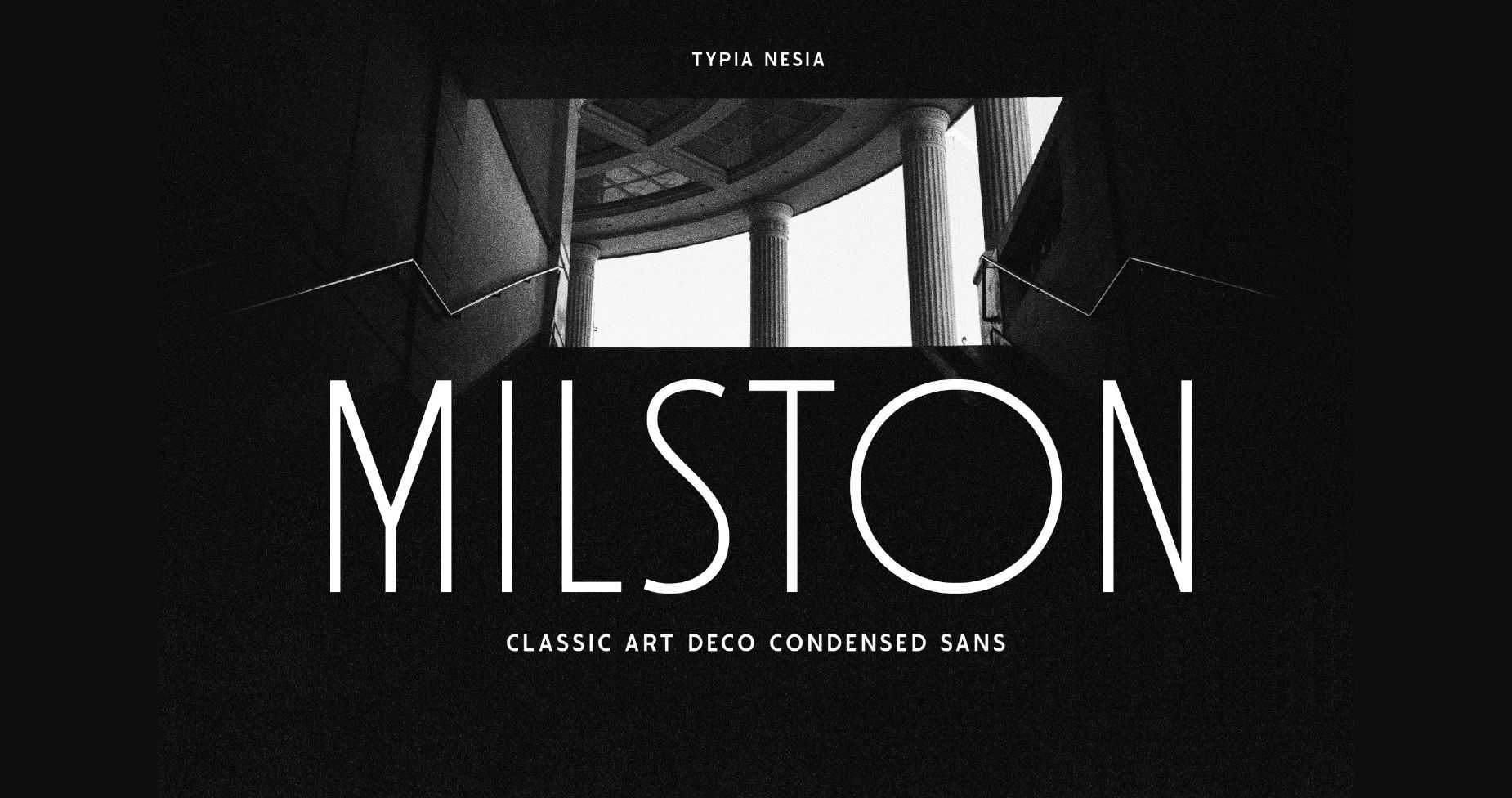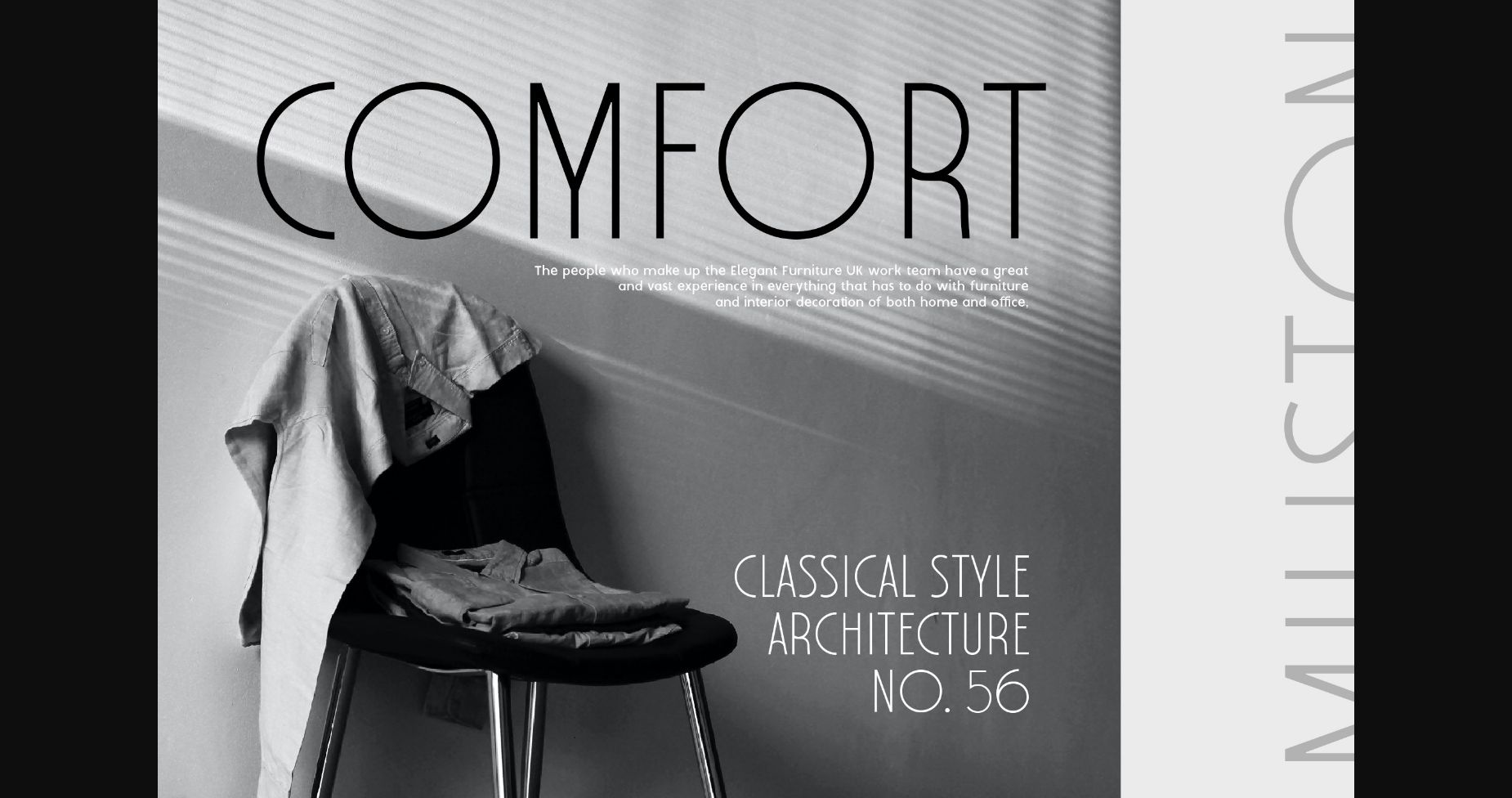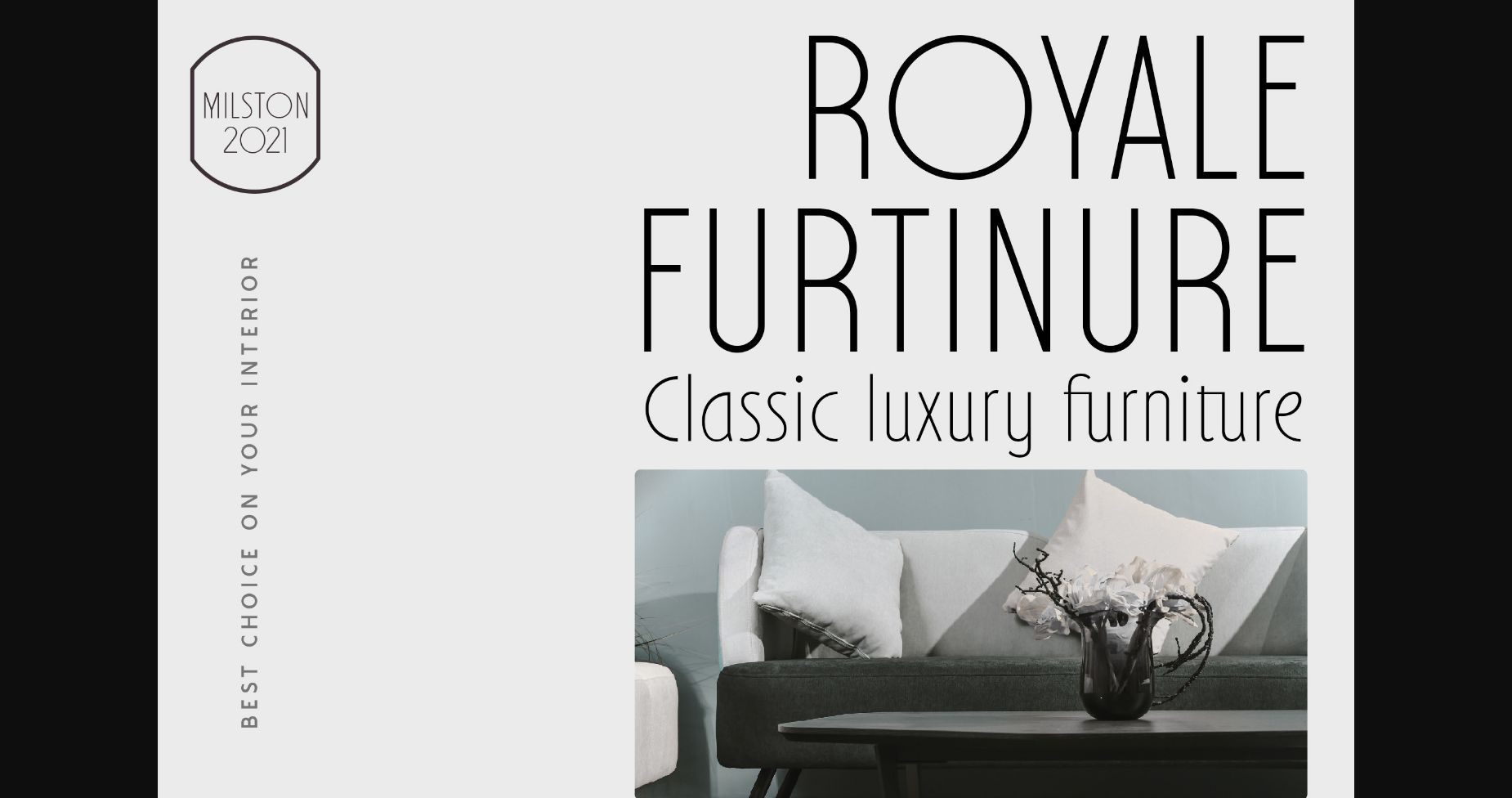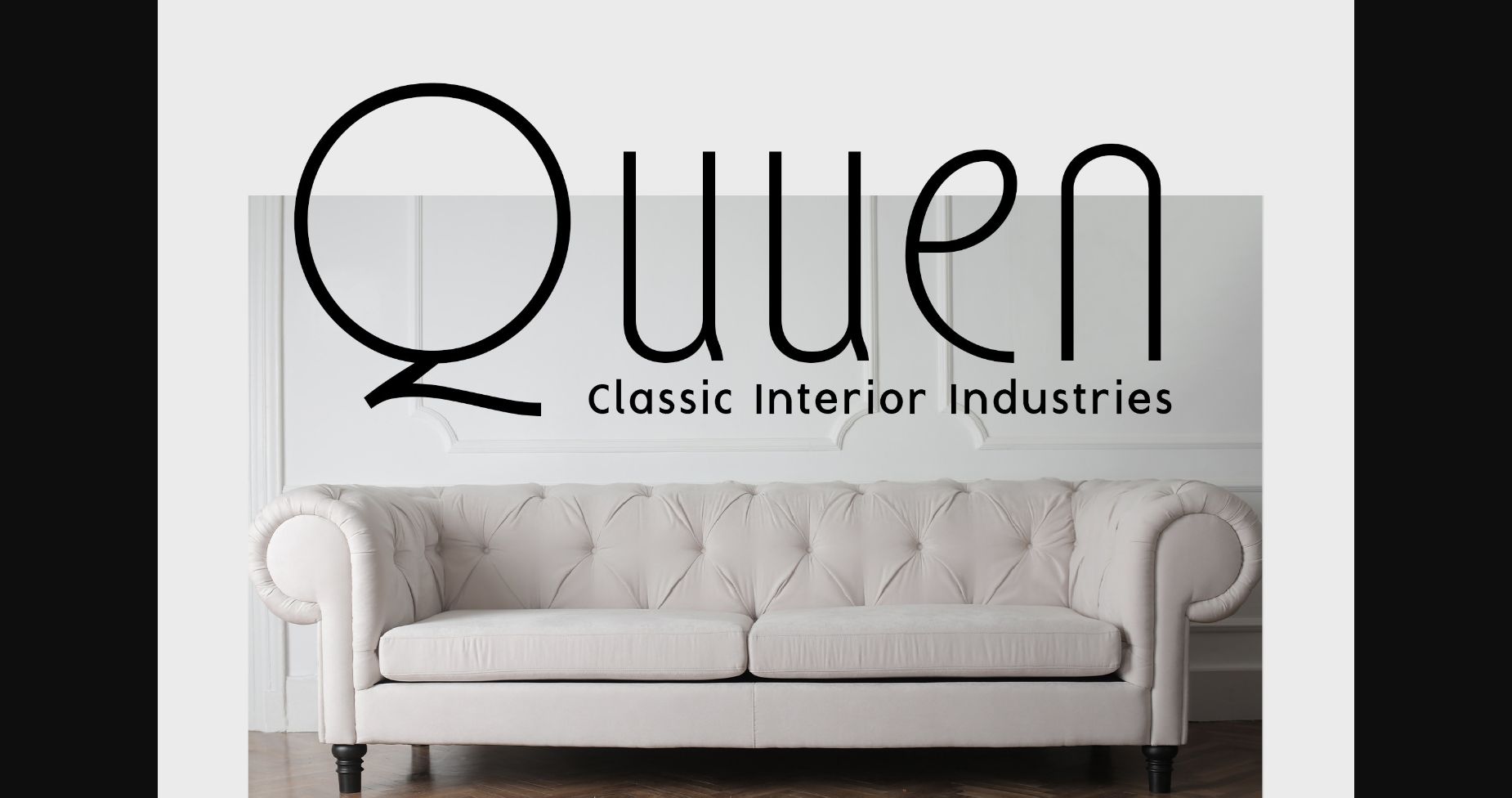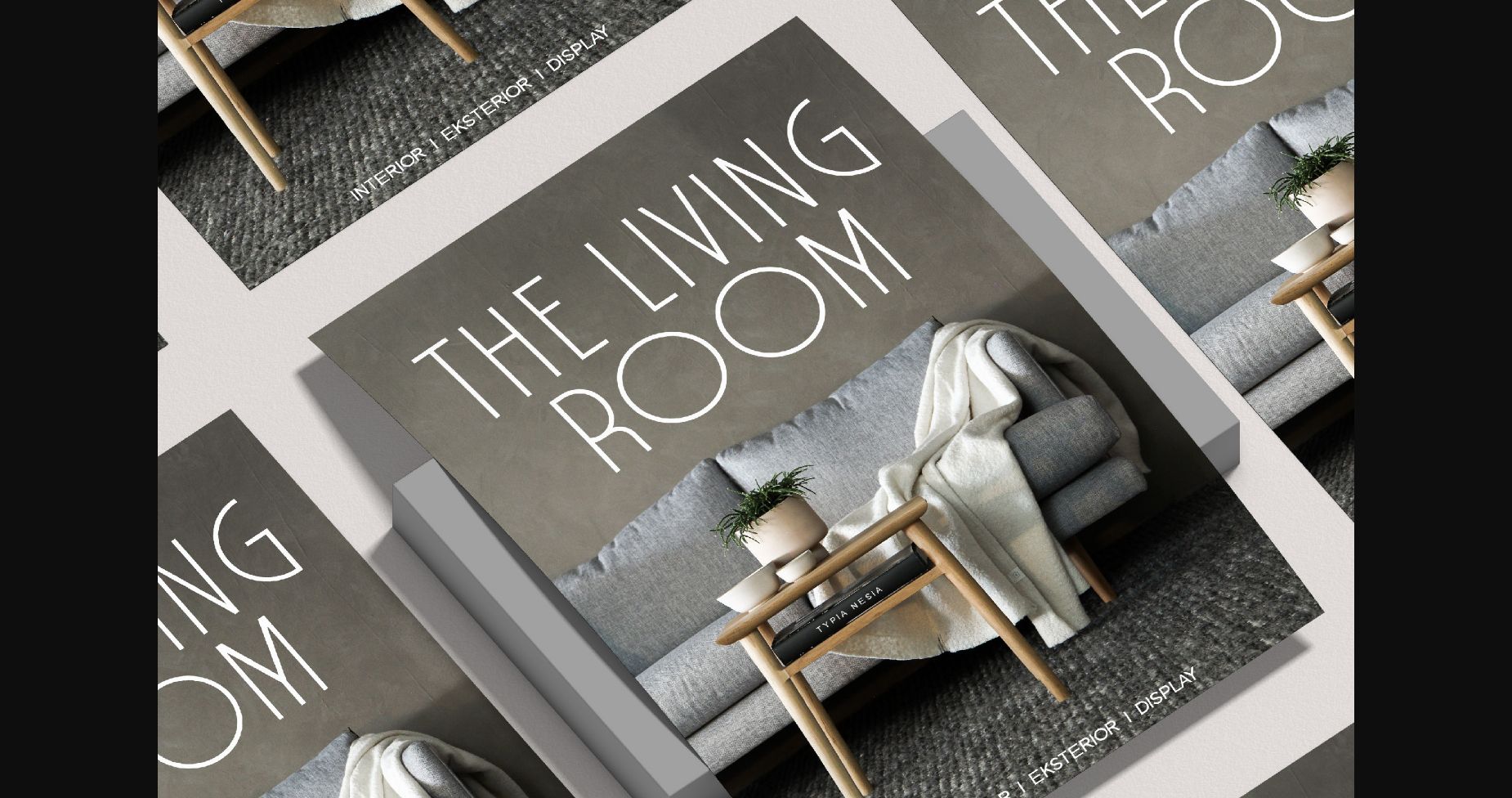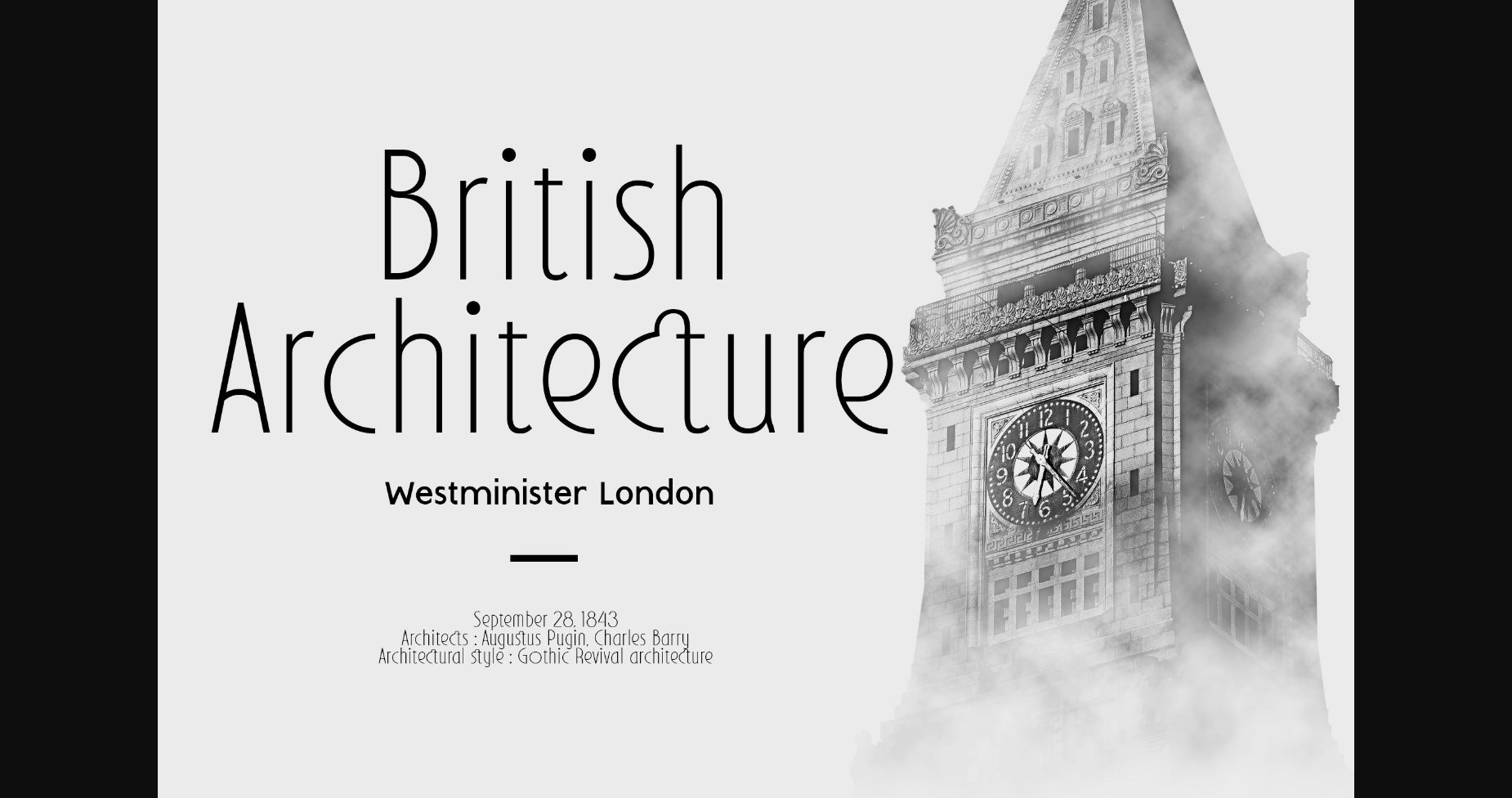
Milston Font
About Milston Font
Milston is a minimal and neat sans serif font. It can easily be matched to an incredibly large set of projects, so add it to your creative ideas and notice how it makes them stand out!